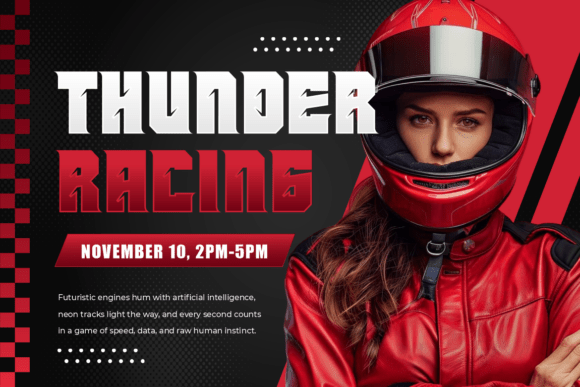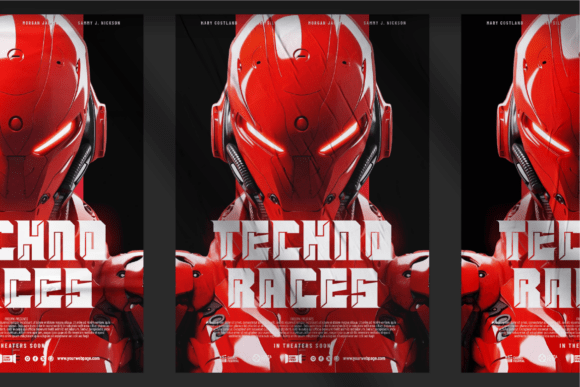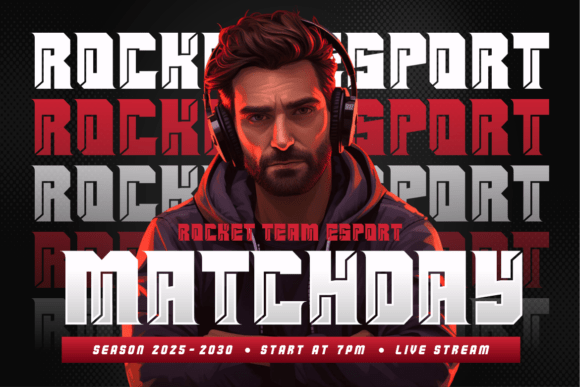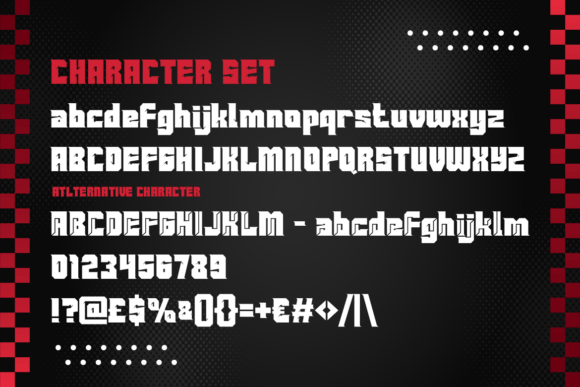
Introduction to Movetrax Booster Font
Movetrax Booster – Sport Racing Font is an adrenaline-charged typeface built for maximum impact in the world of speed, energy, and competition.
With bold, angular strokes and aggressive, geometric cuts, this font embodies the futuristic essence of motorsport, esports, and cyberpunk themes The uppercase letters are solid, condensed, and sharp—mirroring the design of high-performance vehicles and racing decals.